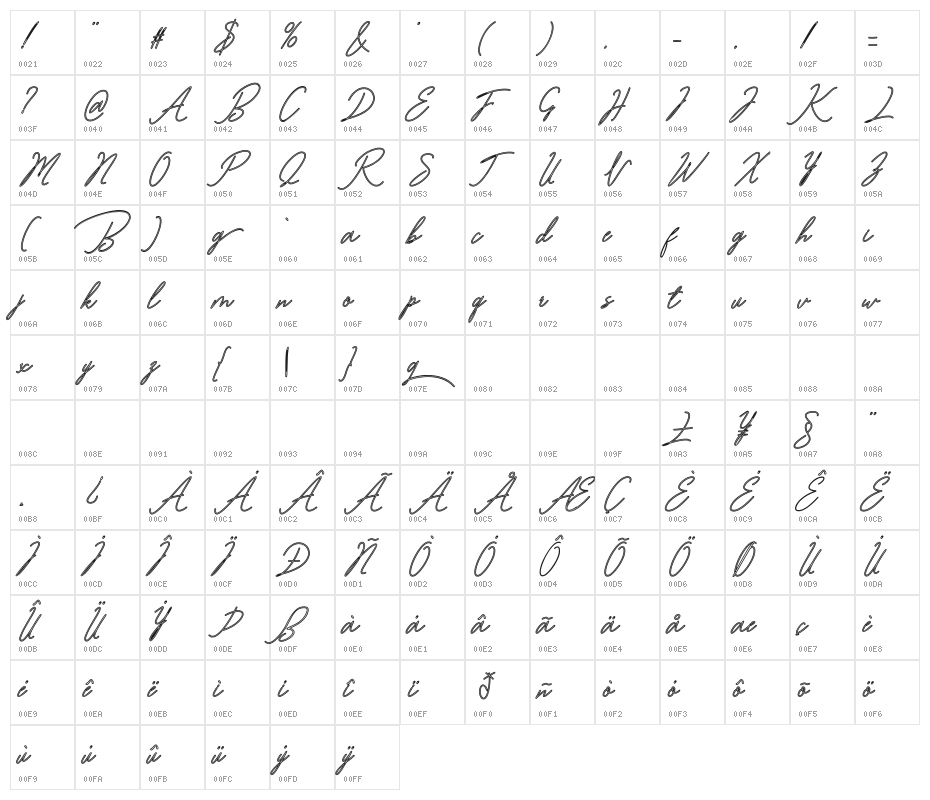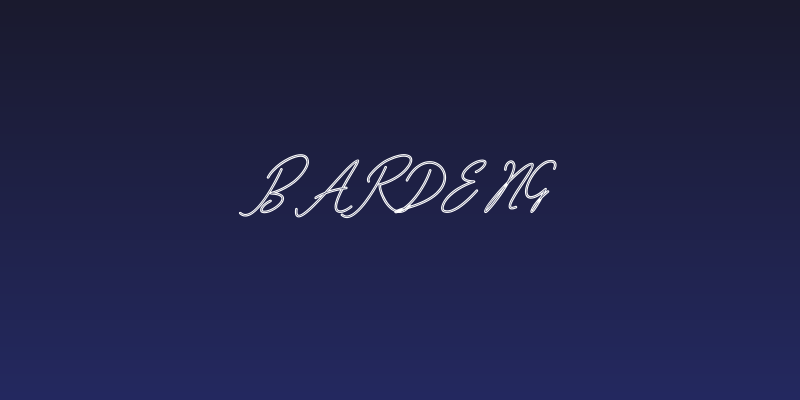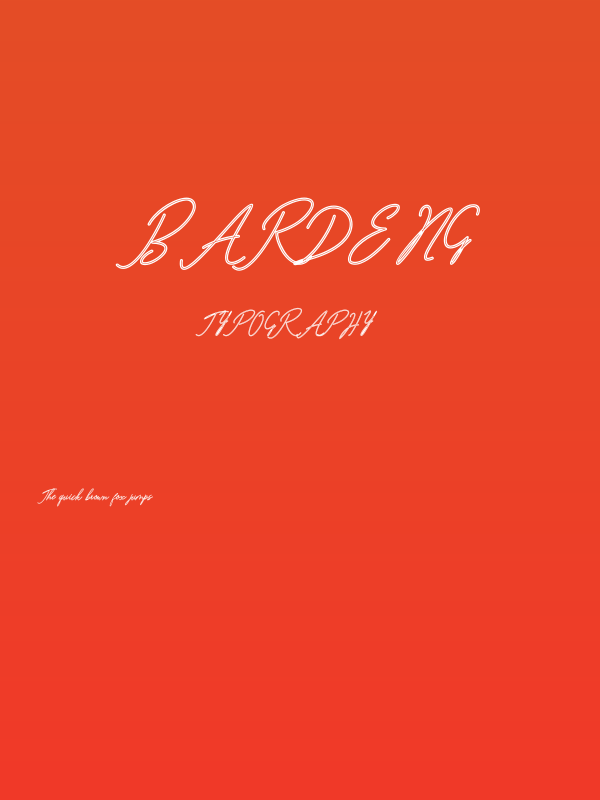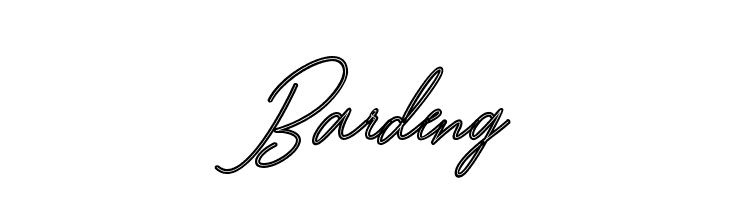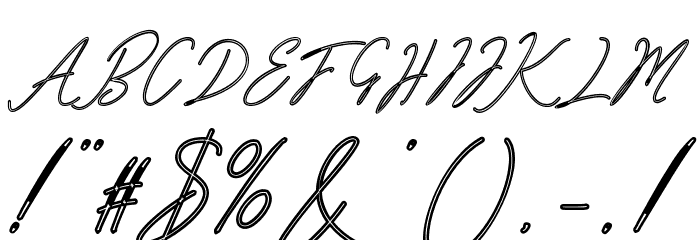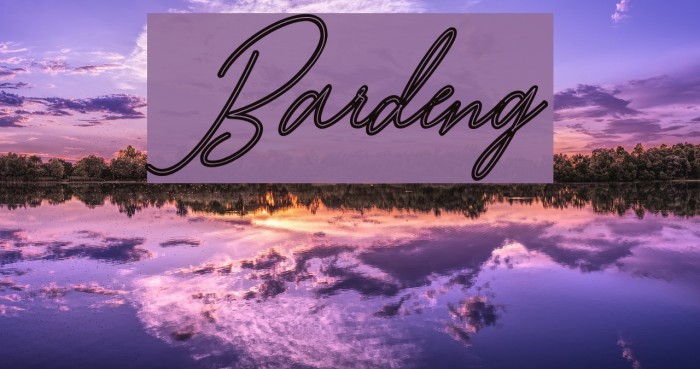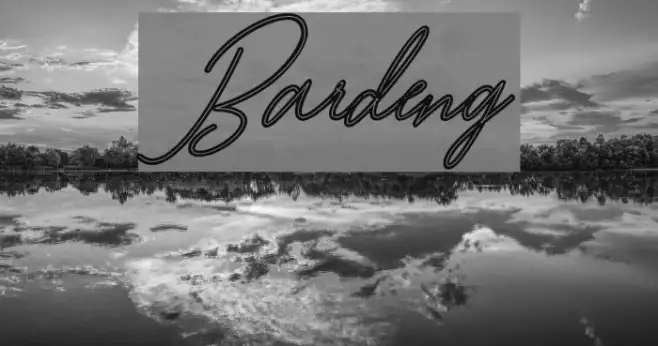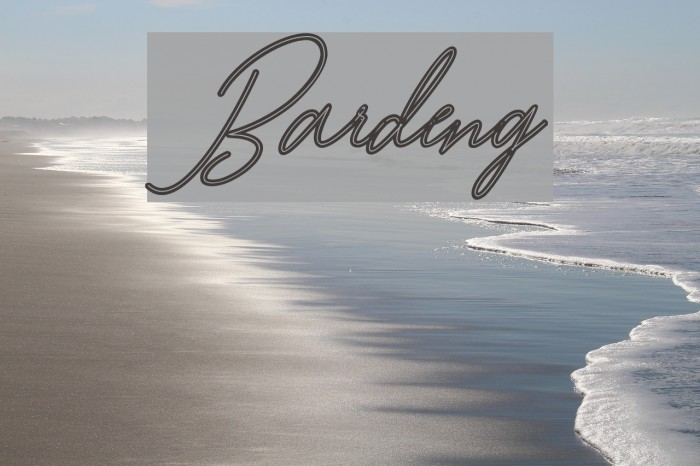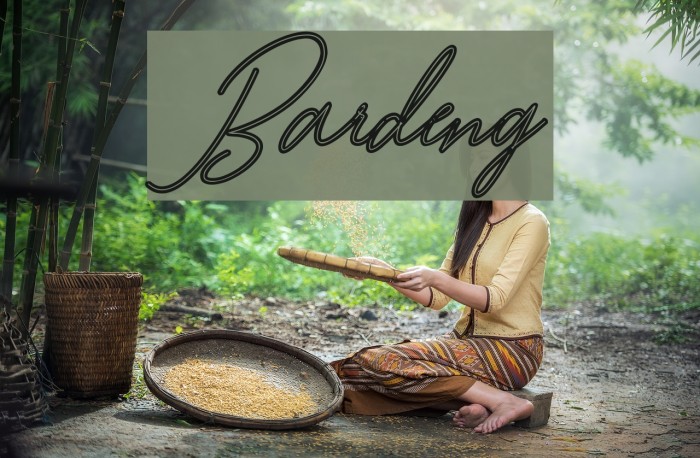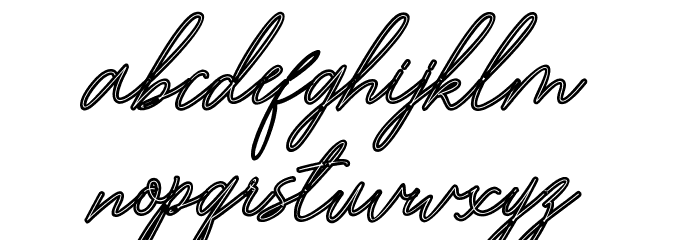
Bardeng Font
Bardeng Description
This elegant script font features fluid, cursive strokes that give it a sophisticated and artistic appearance. The letters are connected, creating a seamless flow that mimics natural handwriting. The uppercase letters are slightly larger and more ornate, while the lowercase letters maintain a consistent style with gentle curves and loops. The numbers and special characters are designed to match the overall aesthetic, ensuring a cohesive look across all text. This font's delicate lines and graceful form make it ideal for projects that require a touch of elegance and refinement.
| Proposed Projects | Ideal for wedding invitations, elegant branding, personal stationery, and artistic projects. |